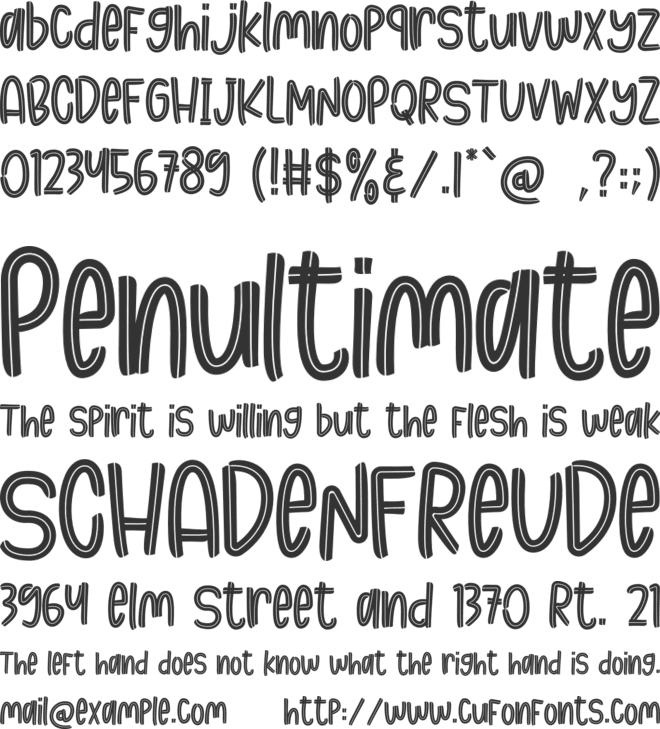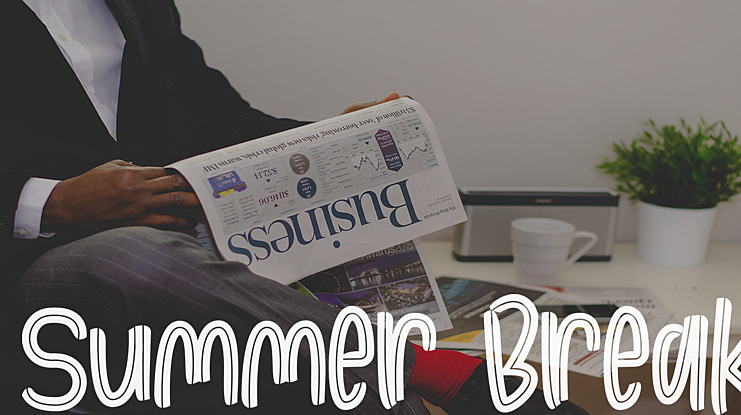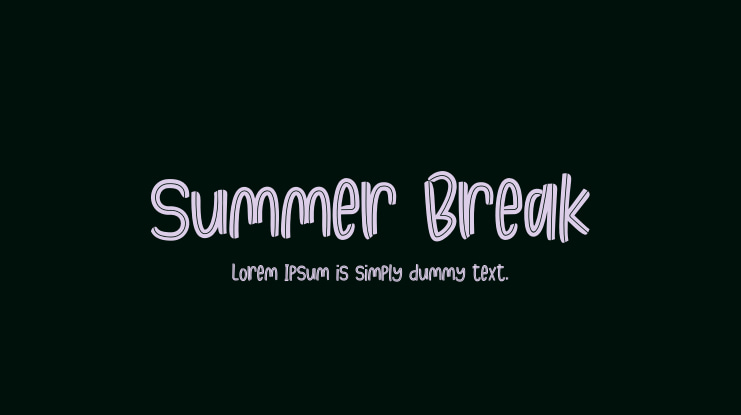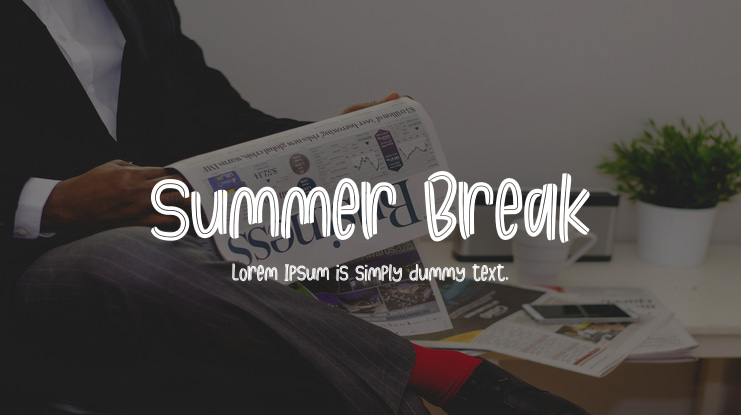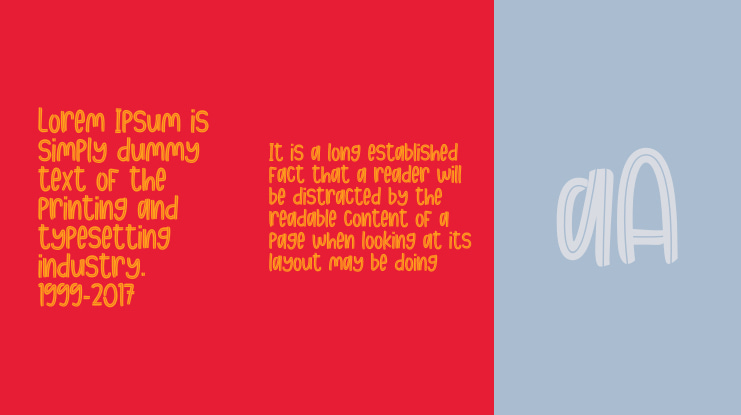
Summer Break Font
Summer Break is a cute and lovely handwritten font, described by a fun touch, perfect for your favorite projects. Whether you’re using it for crafts, digital design, presentations, or making greeting cards, this font has the potential to become your favorite go-to font, no matter the occasion!